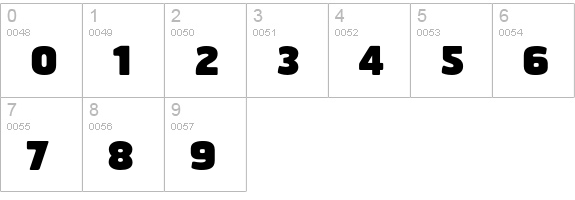
Hermes-Black is a maximum-weight, dramatic variant in the Hermes typeface family \xE2\x80\x94 well suited to maximum-impact headlines, posters, and packaging.
Hermes-Black is a sleek and modern font that exudes sophistication and elegance. Its bold and sharp design makes it perfect for creating eye-catching headlines, logos, and branding materials. The clean lines and unique styling of Hermes-Black give any project a touch of class and professionalism. What's even better is that Hermes-Black is completely free to download at FontsMarket.com. This means you can access this high-quality font without any cost, making it a valuable addition to your design toolkit. Whether you're a graphic designer, marketer, or just someone looking to add a touch of style to your projects, Hermes-Black is the perfect choice for achieving a polished and refined look. Download it today and elevate your designs with this stunning typeface.